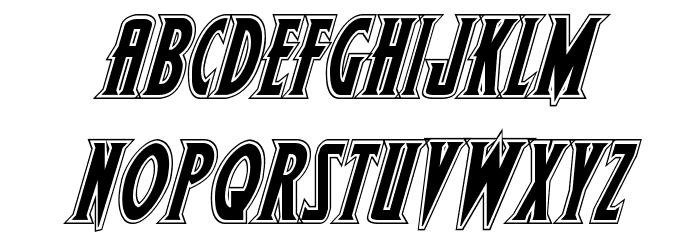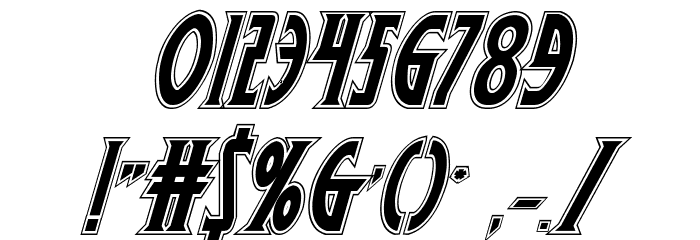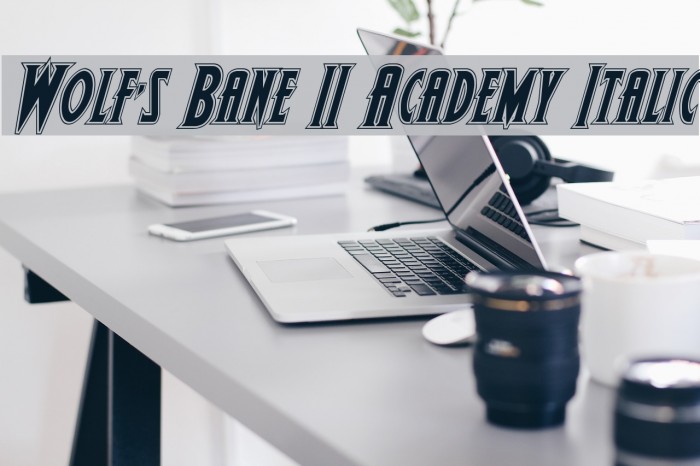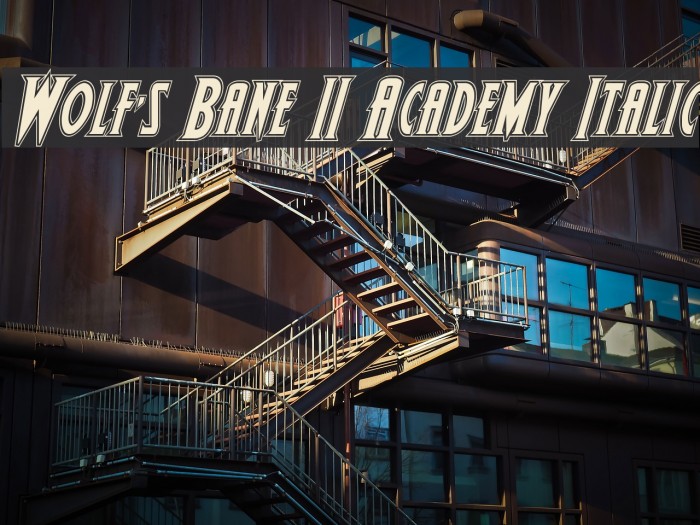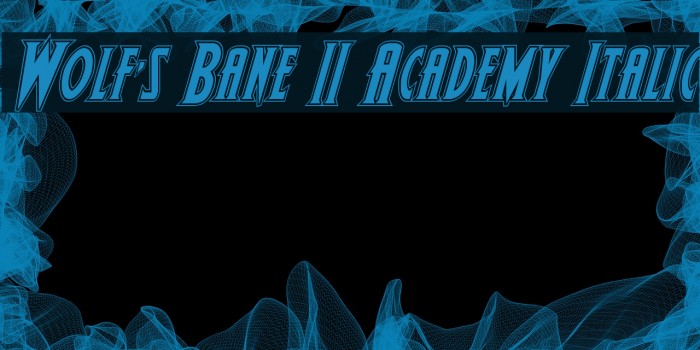
Wolf's Bane II Academy Italic Font
This font features a bold and dynamic style with a strong italic slant, giving it a sense of movement and energy. The characters are outlined with a thick black border, enhancing their boldness and making them stand out. The interior of each letter is filled with a solid color, creating a striking contrast against the outline. The font has a decorative flair, with sharp angles and unique serifs that add to its distinctive appearance. The numbers and special characters follow the same design principles, ensuring consistency throughout. This font is ideal for projects that require a bold and eye-catching typeface.
A bold, italic, and decorative font with strong outlines and dynamic style.
- Proposed Projects: Ideal for posters, logos, video game titles, and any project needing a bold, eye-catching typeface.